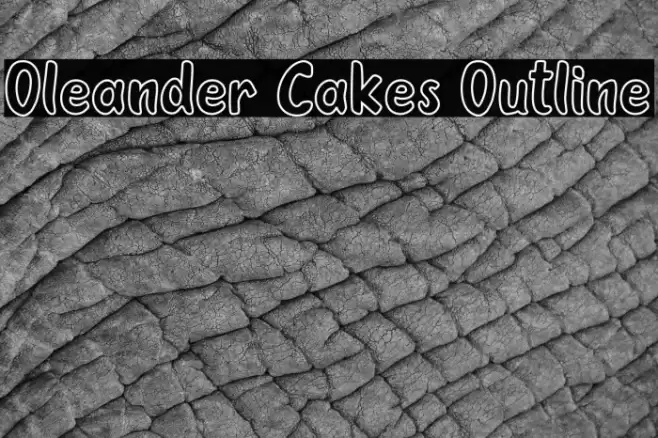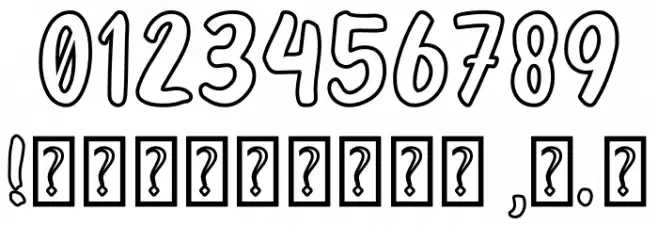
Oleander Cakes Outline Font
Oleander Cakes Outline Description
This playful and whimsical font features an outline style that gives it a unique and eye-catching appearance. The characters are bold and rounded, with a hand-drawn quality that adds a touch of charm and personality. The uppercase and lowercase letters maintain a consistent style, with smooth curves and a slightly irregular form that enhances the casual and friendly feel. The numbers and special characters are equally engaging, making this font versatile for various creative projects. Its outline design allows for easy customization, such as filling with colors or patterns, making it ideal for artistic and decorative uses.
A playful, hand-drawn outline font with bold, rounded characters from Cartoon fonts.
- Proposed Projects: Ideal for children's book covers, playful branding, greeting cards, and creative posters.
- Overall Style: Playful, Whimsical
- Use Case: Headlines, Logos, Creative projects